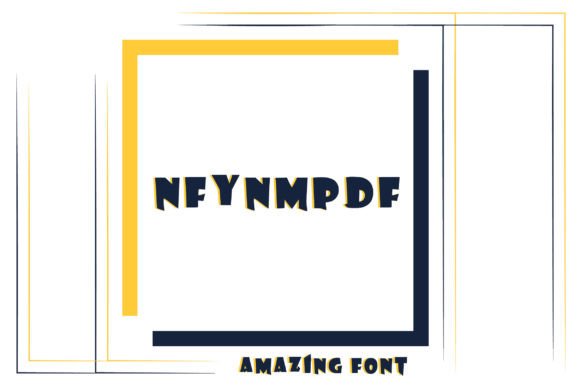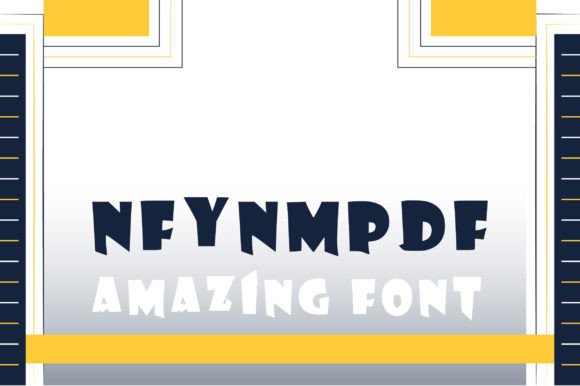
Introduction to Nfynmpdf Font
Have you ever stared at a blank page, trying to find the perfect font to bring your creative project to life? The blank space can be intimidating, but sometimes all it takes is one special font to make your design pop. That’s where the Nfynmpdf Font comes in – a fun and friendly handwritten display font that’s sure to add a touch of whimsy to your work.
With its irregular baseline and playful flair, the Nfynmpdf Font is the perfect design resource for anyone looking to add some personality to their projects. Whether you’re working on a logo, a social media graphic, or even a digital presentation with a transparent background, this high-quality font is sure to deliver. And the best part? It’s available for free download, making it an invaluable resource for designers of all levels.
Key Features of Nfynmpdf Font
- High-quality font designed for creative projects, offering a unique and stylish look.
- Unique characteristics: intricate details, elegant lines, and a sophisticated feel, making it perfect for branding, typography, and creative projects.
Honest Review: Nfynmpdf Font
I recently came across the Nfynmpdf Font, and I must say, it’s an interesting addition to my design resources. The font is available for a free download, which is a great perk for creatives working on tight budgets.
One of the standout features of the Nfynmpdf Font is its transparent background, which allows for seamless integration into various design projects. This flexibility is especially useful when working with complex backgrounds or layered compositions.
Here are some of the things that work well with the Nfynmpdf Font:
- High-quality design: The font is well-crafted and features a unique, modern aesthetic.
- ⚠️ Limited font styles: The Nfynmpdf Font is a single-family font, which may not offer the same level of versatility as more comprehensive font bundles.
Overall, the Nfynmpdf Font is a solid addition to any design resource library. While it may not be perfect, its unique features and high-quality design make it a great choice for creatives working on a variety of projects.
The Nfynmpdf Font is ideal for a variety of creative projects, including graphic design, digital art, and print design. Its high quality and transparent background make it a versatile design resource that can be used in a range of applications.